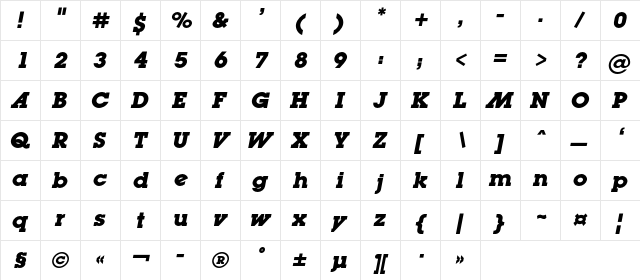
LugaAdC Bold Italic
Design Context for LugaAdC Typeface
LugaAdC is a composed and adaptable typeface that performs quietly and consistently across a wide range of design contexts. Its italic angle brings a sense of urgency and motion to the letterforms. The heavy weight commands attention and anchors typographic hierarchies.
Pro Tip: Use LugaAdC for emphasis, pull quotes, and subheadings where its slanted energy can add rhythm to the layout.